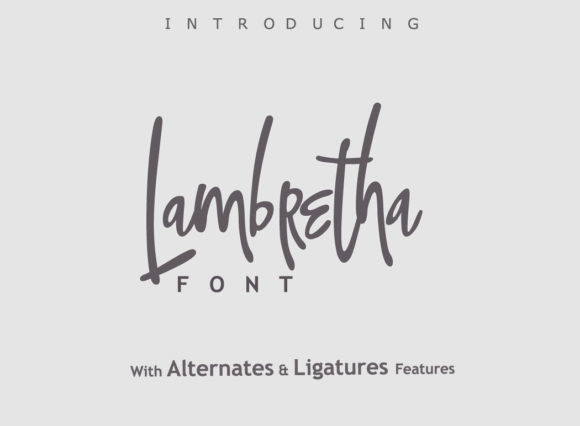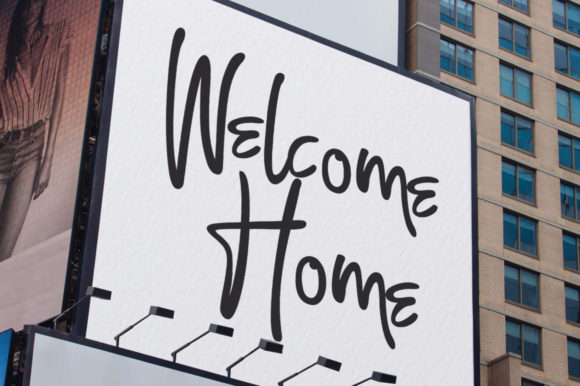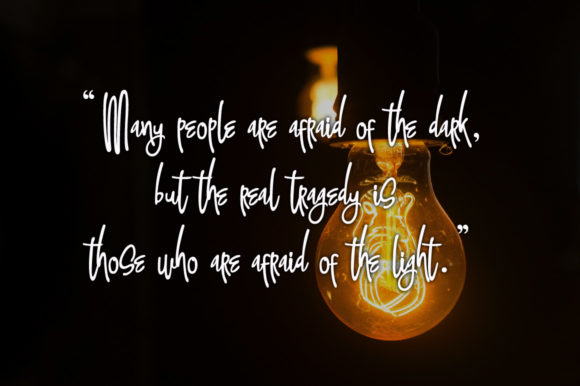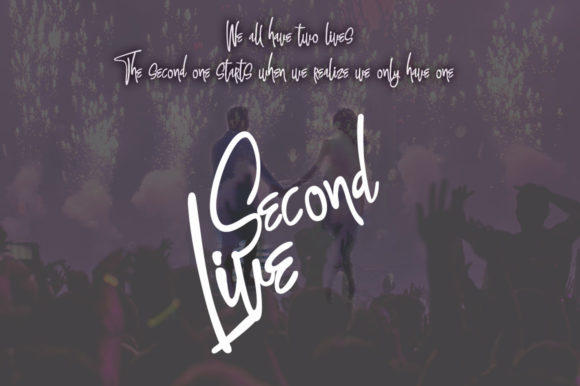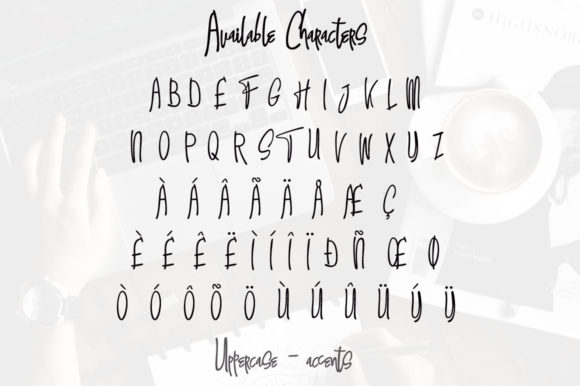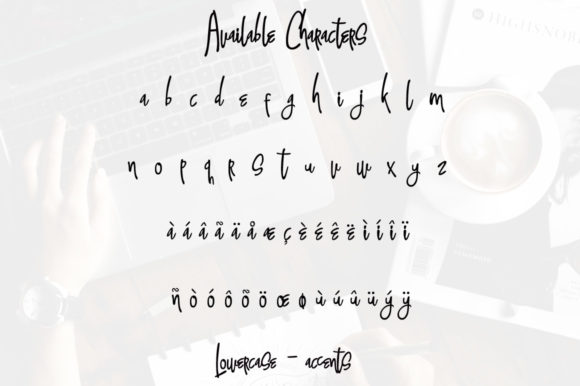
Lambretha Font
About Lambretha Font
Lambretha is a unique handwritten font. Its casual charm makes it appear wonderfully down-to-earth, readable and, ultimately, incredibly versatile. Lambretha will look outstanding in any context, whether it’s being used on busy backgrounds or as a standalone headline!